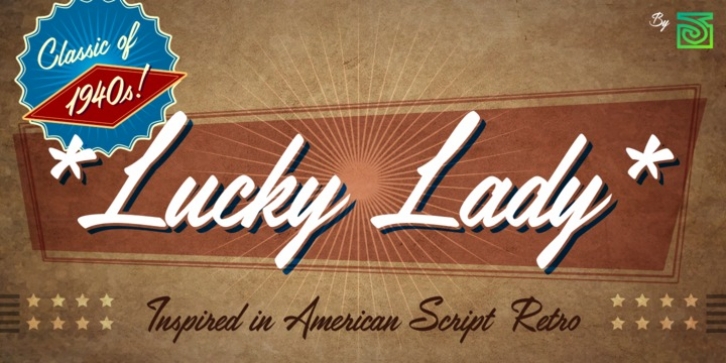
LUCKY LADY was inspired by the old, classic art and craft of brush script lettering usually applied in ads of the WWII era and 1940s. The name of the font family refers to one of the most emblematic combat units of the US air force in WWII that were decisive in the victory of the allied forces.
LUCKY LADY can be mainly used in titles and display texts. It supports East Europe languages. It’s highly recommend to use the combined shadow styles under the main regular basic style layer. Lucky Lady includes standard and discretionary ligatures, alternative style for uppercase, fractions, numerators and denominators, end and/or terminal forms and other OpenType features.